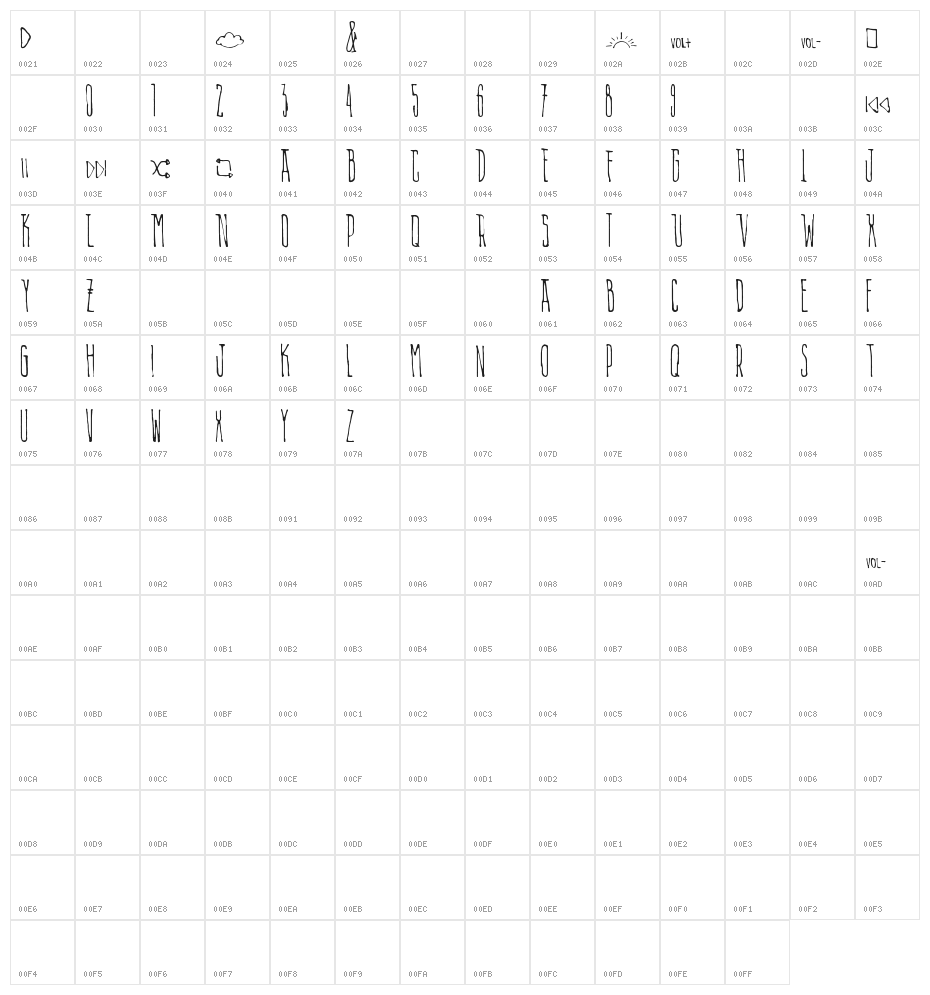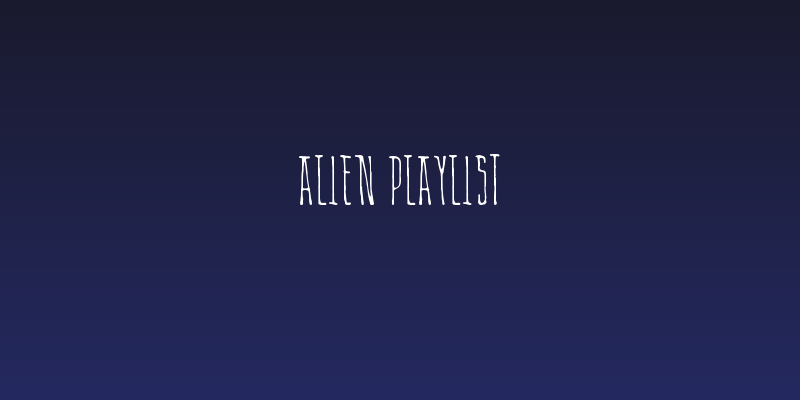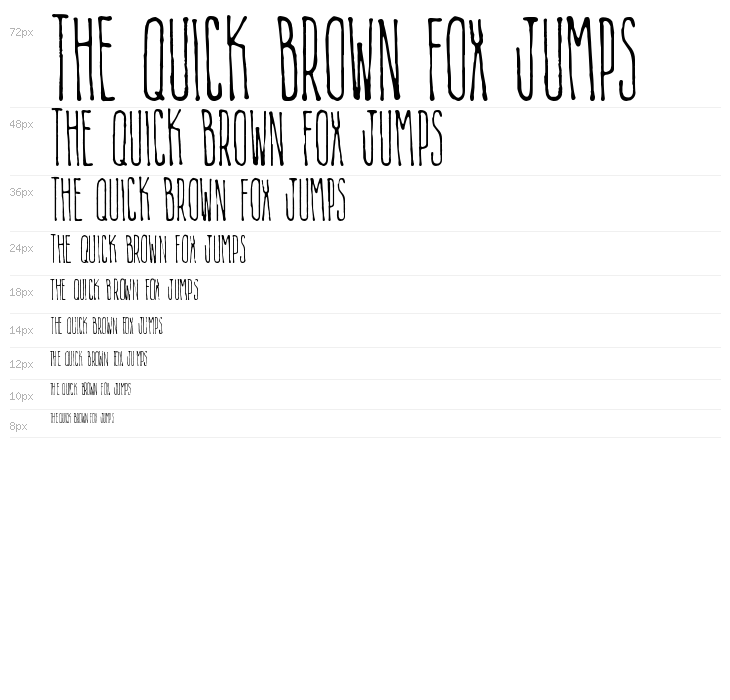
Alien Playlist Font
| Stile generale | Playful, Hand-drawn |
| Caso d'uso | Logos, Posters, Creative projects |
| Progetti proposti | Ideal for creative projects such as album covers, posters, or children's book illustrations where a playful and unique style is desired. |